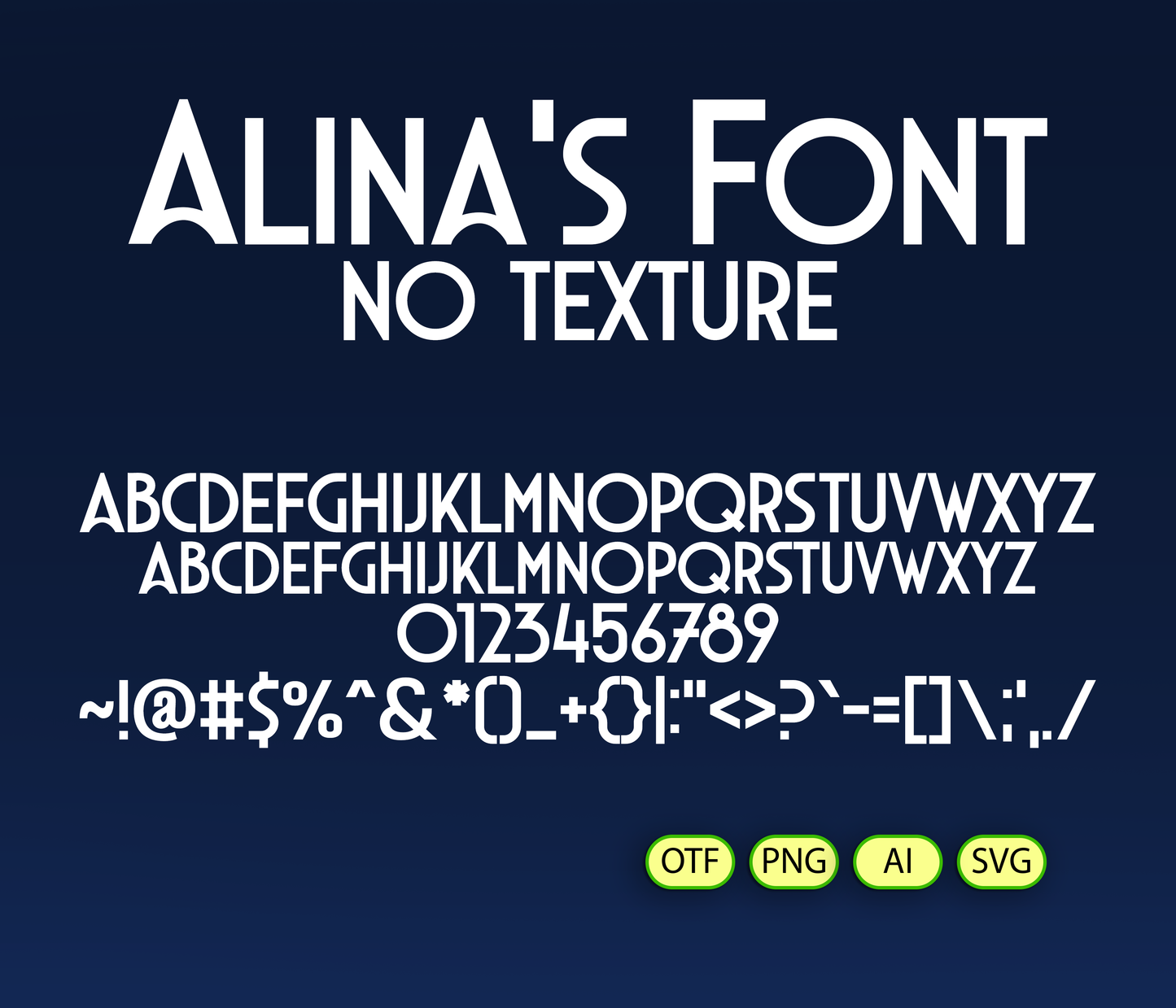
Mystical Steampunk Hex Font
Step into the enchanting world of magical technology with our specially designed font, capturing the essence of a fantastical underground city where science and sorcery collide. Perfect for fans, game creators, event organizers, and designers, this font brings the dramatic, neo-Victorian spirit of hextech innovation to your projects. Create event invitations, themed merchandise, or digital content with the mysterious energy of this epic tale of sisterhood and power.
Our Mystical Steampunk font features elegant yet rugged characters reflecting the blend of aristocratic refinement and underground grit. Ideal for:
Our font pays tribute to the legendary tale of innovation and magic, empowering your designs with its sophisticated yet rugged spirit. Whether crafting promotional materials, designing merchandise, or adding a mystical touch to personal projects, this font communicates the powerful essence of hextech innovation. Ready to inject some magical technology into your creations? This font is your key to enchanting, impactful design.